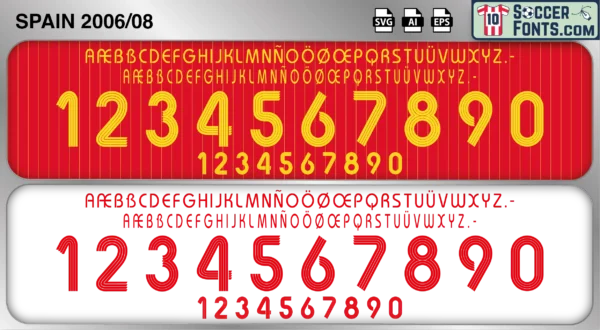
Spain 2006-08 Font
The Spain 2006-08 font is an editable soccer jersey lettering design in vector format inspired by the Spain kit style used during the 2006-08 football seasons. This football font artwork is prepared for football shirt recreations, custom jersey projects, football kit mockups and sports graphic design workflows.
The Spain 2006-08 font became associated with the start of Spain’s golden era and the emergence of a football philosophy that influenced the sport worldwide. Spain shirts from this period remain highly collectible because of their connection with UEFA EURO 2008 success and the rise of one of the greatest international teams ever assembled. The Spain 2006-08 font reflects a transformative moment in football history, capturing the beginning of a generation that would go on to dominate both European and world football over the following years.